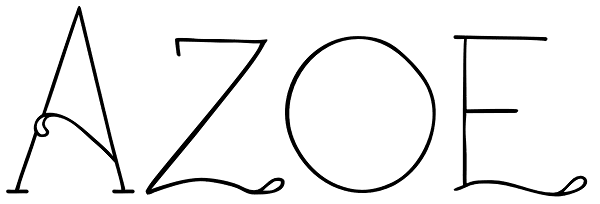
Azoe
The Azoe font family is cute unique handwriting. Azoe features extended characters, and contains West European diacritics & ligatures. Highly suitable for international environments & publications.